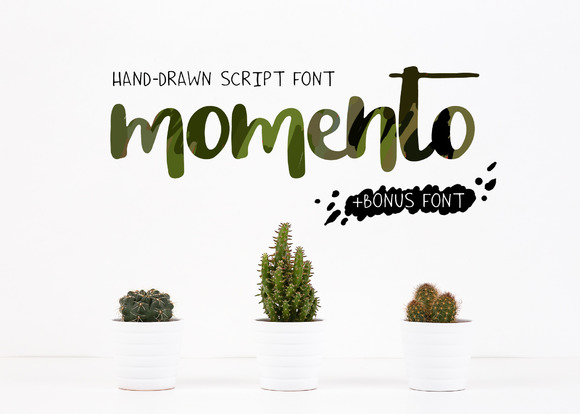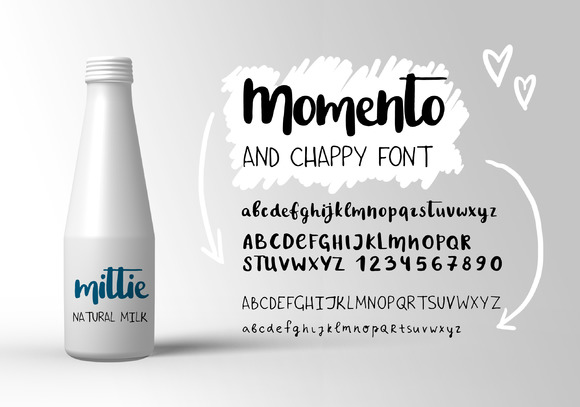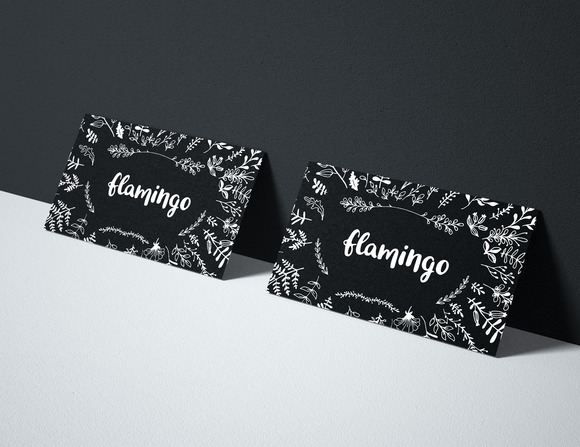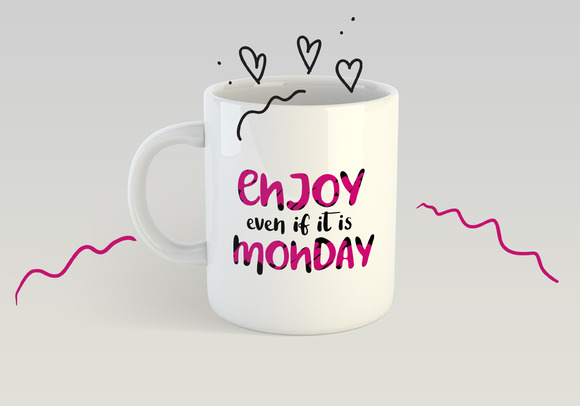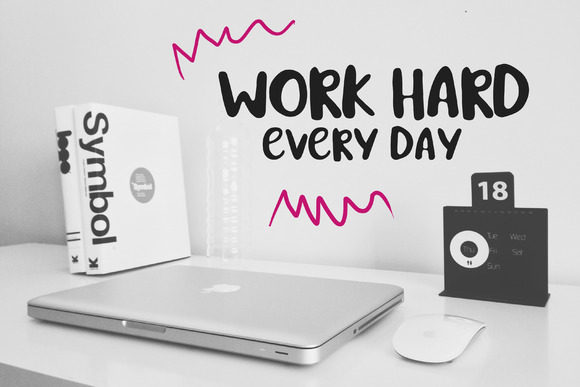
Momento Brush Font
Momento is contemporary brush font, with the look of a stylish face. It were painted on paper and carefully made into a font. It can be used for stationery, books, clothing, magazines, cover artwork and marketing.